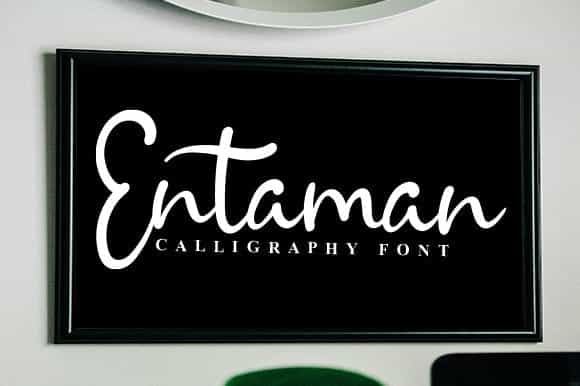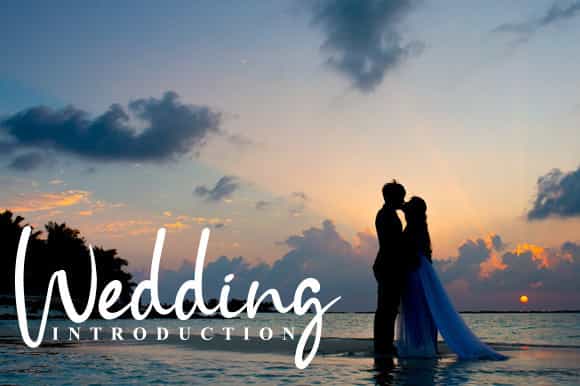
Entaman is another font that has been developed with some classic sophistication. It combines the classical elegance and calls to the calligraphy that gives a beautiful look and feel while at the same time giving a welcoming feel. Whether it is in designing or in the pursuit of excellence in the style that is being aimed at Entaman can be said to be a choice for any creative work.